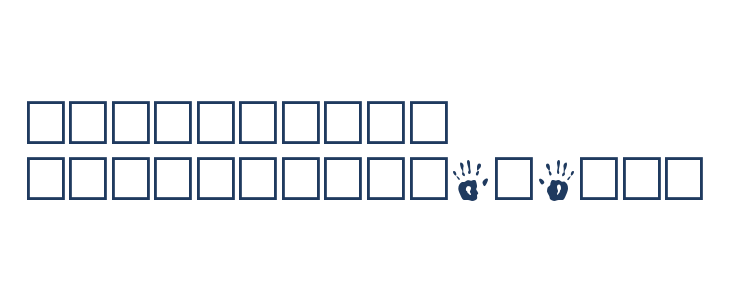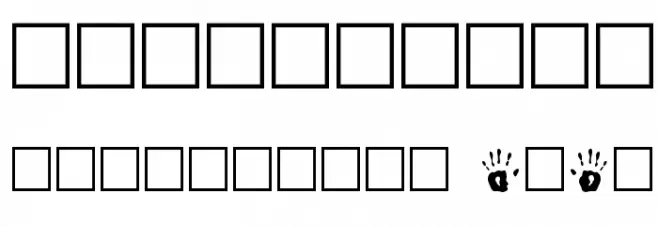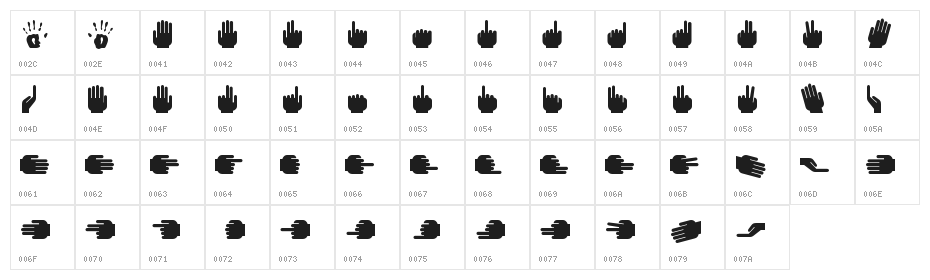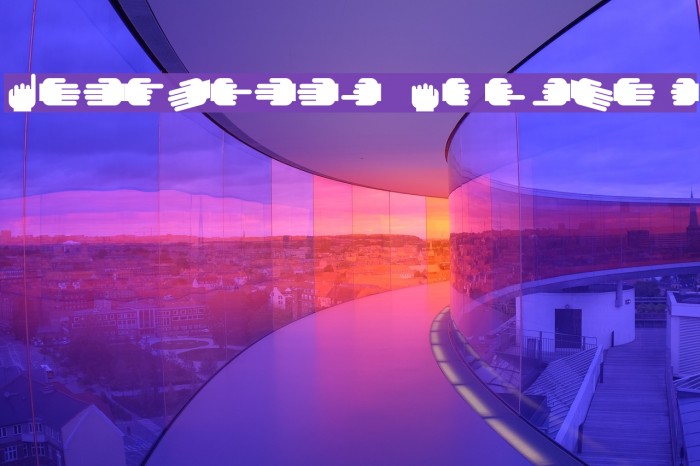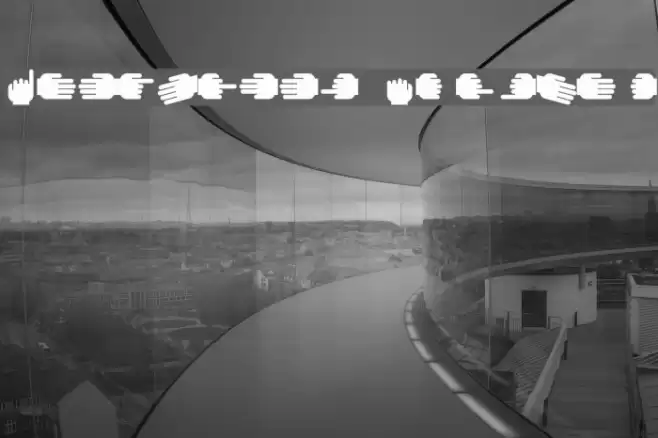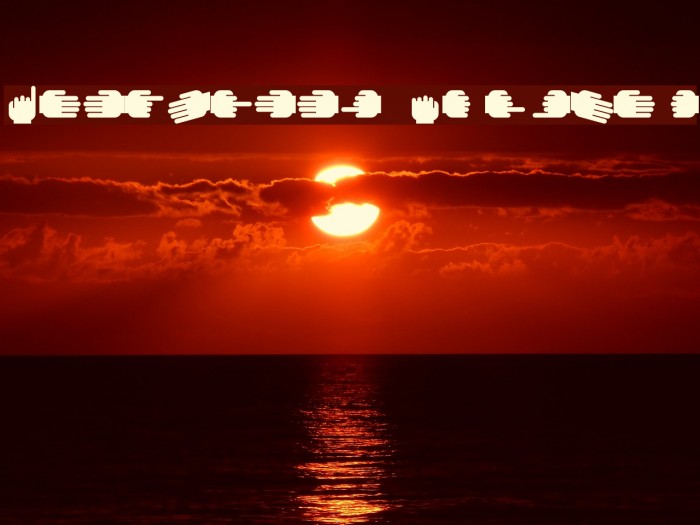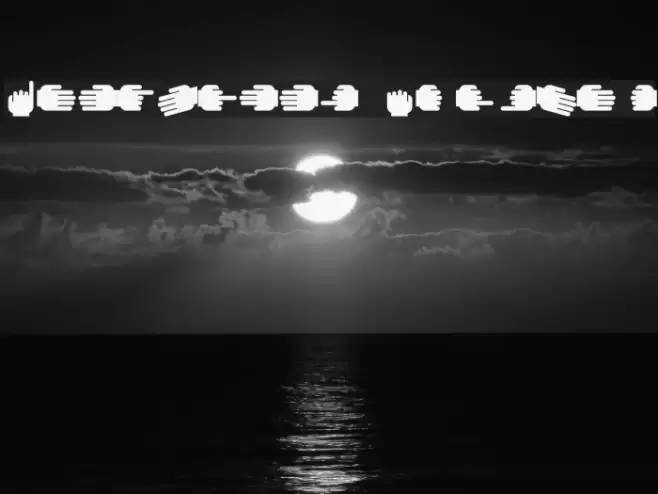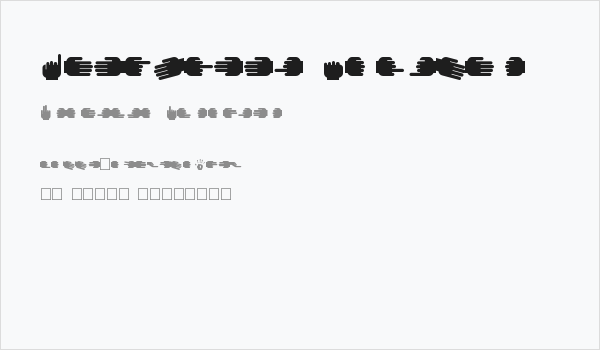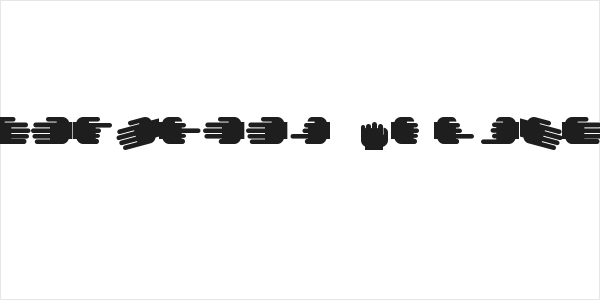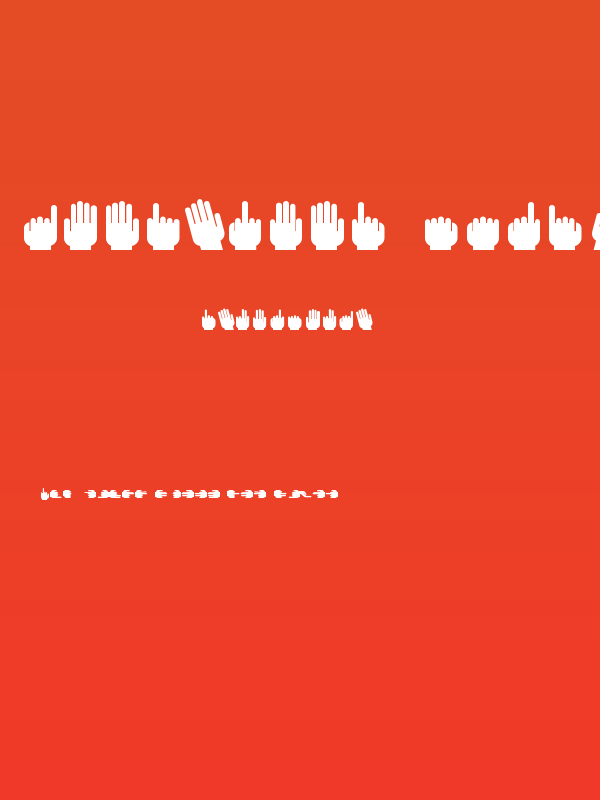
Handyfont Regular Font
Handyfont Regular Description
This unique and playful font features a series of hand gestures, each representing a different character. The design is bold and graphic, with solid black silhouettes of hands in various positions. The font is highly decorative and unconventional, making it stand out for creative projects. Each character is distinct, with clear outlines that ensure readability despite the abstract representation. The font is ideal for projects that require a fun and engaging visual element, such as children's books, playful branding, or interactive designs.
| Use Case | Logos, Posters, Creative projects |
| Proposed Projects | Ideal for children's books, playful branding, interactive designs, and creative posters. |